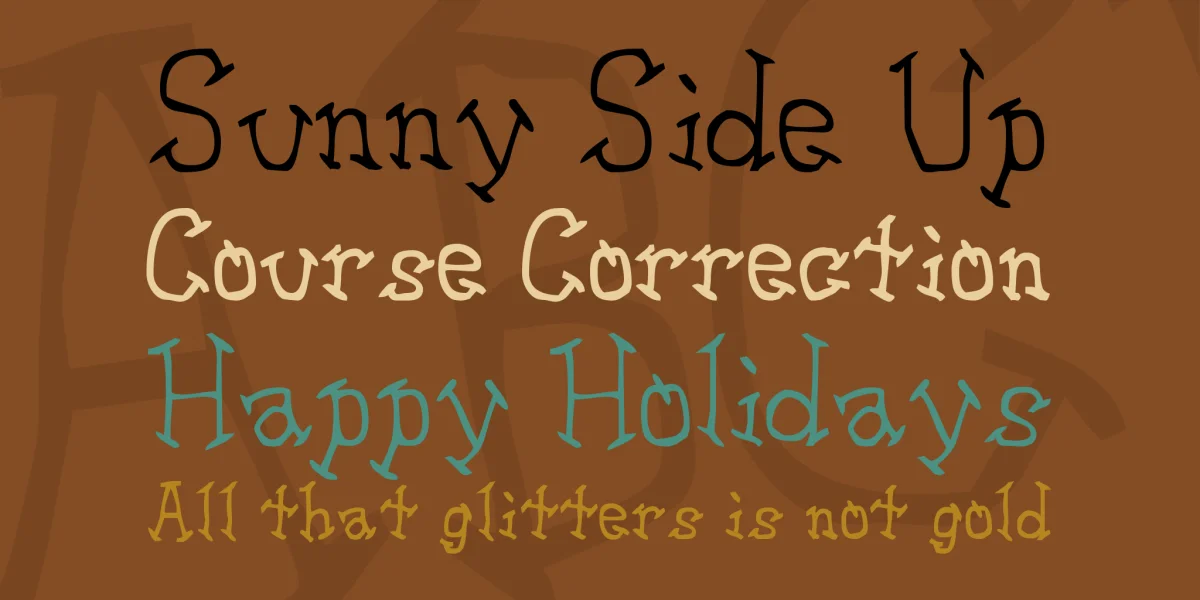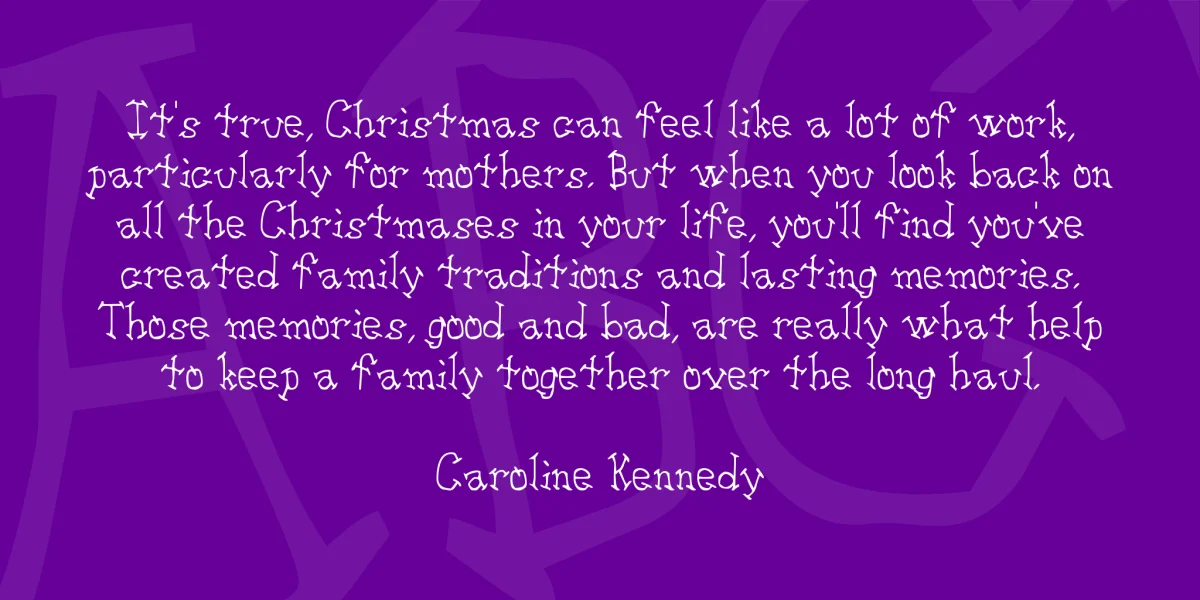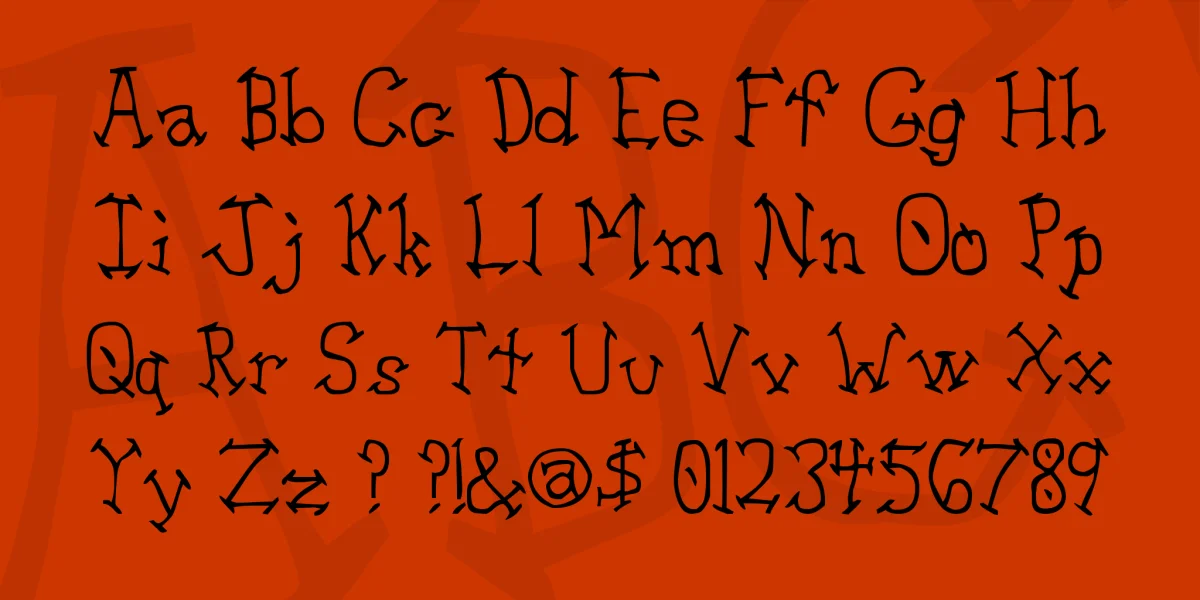
I recently received a cup with my name on it. I really liked the writing style. I have always liked that style of writing, because it means #1 that it came from a girl, and #2 that they took a lot of time on it. Well, now anyone can use this style of writing. I just don't see how you can put a plastic cup in an inkjet printer. If anyone knows, please tell me.